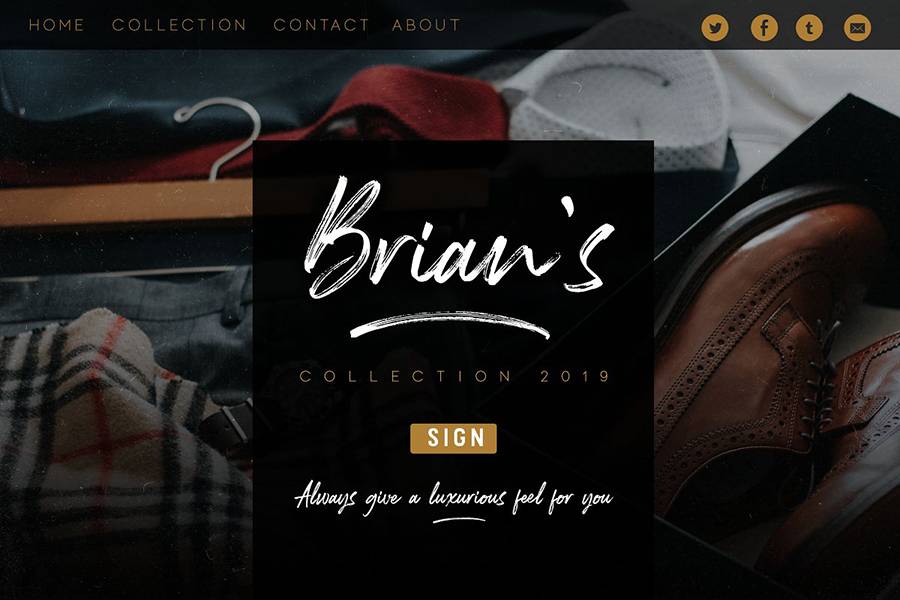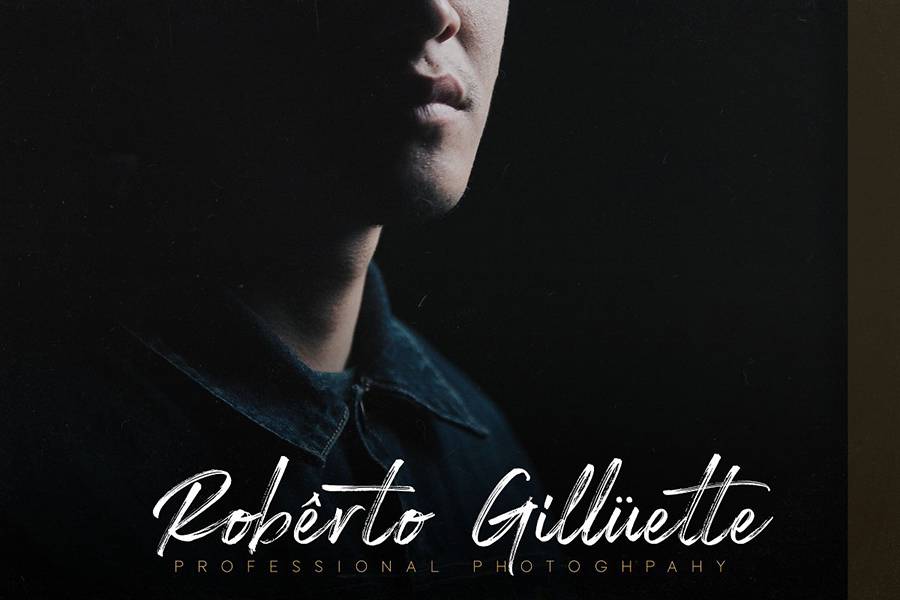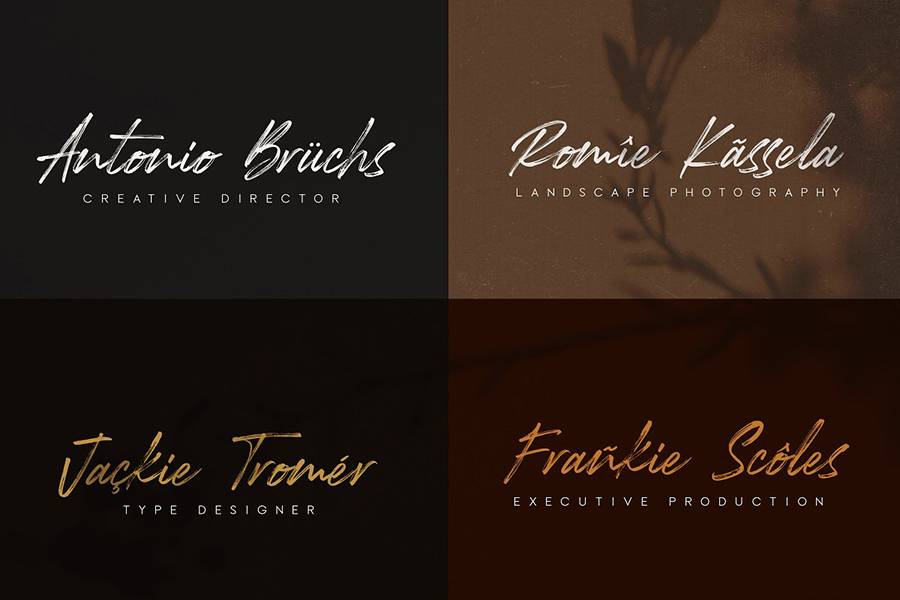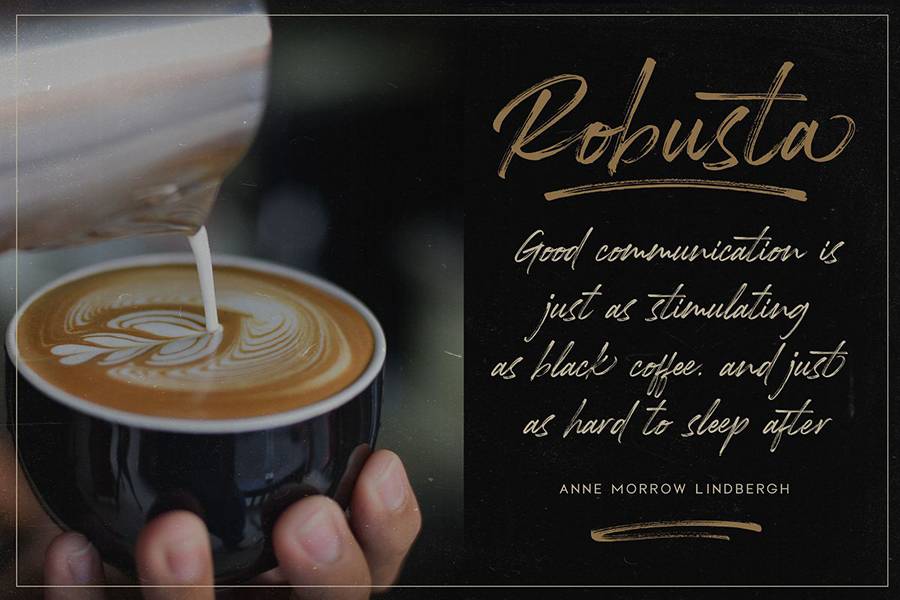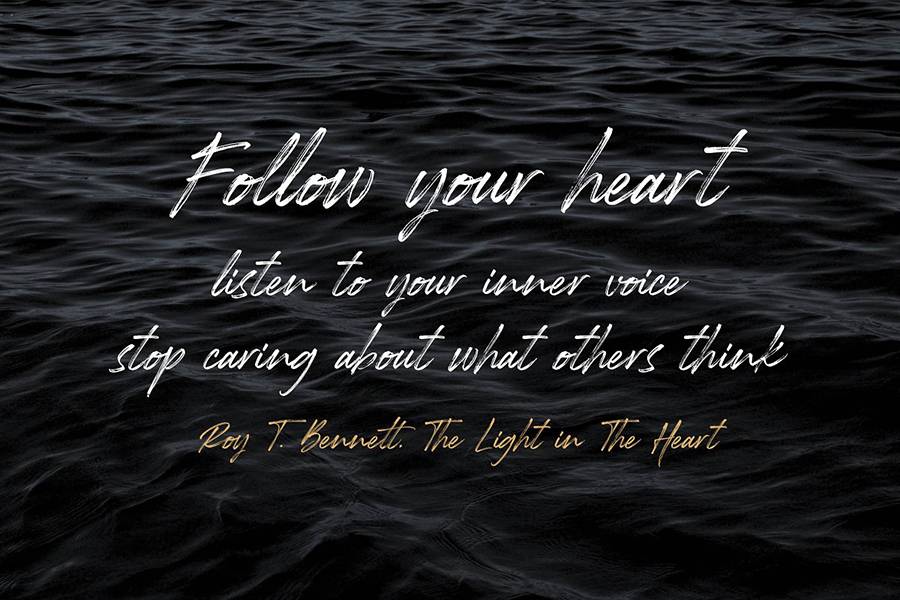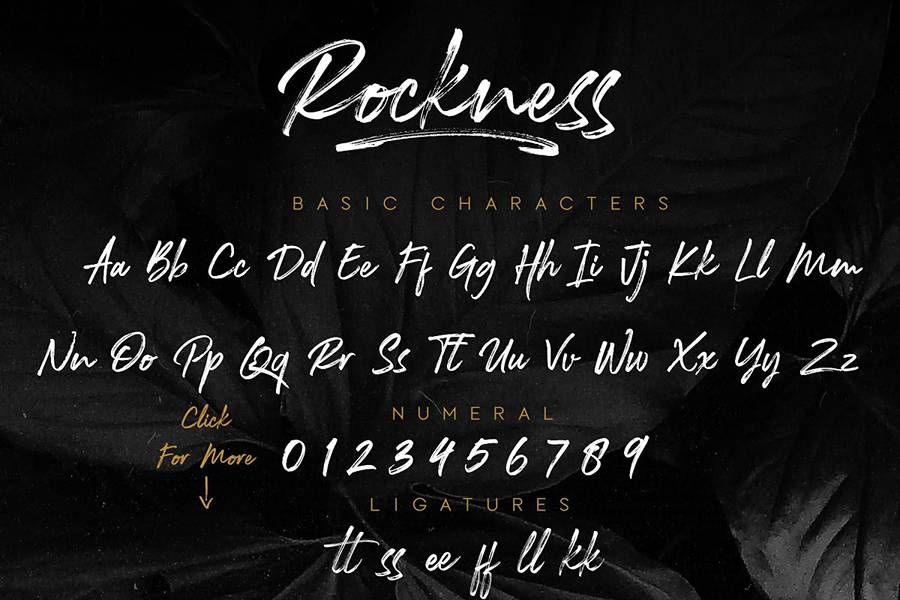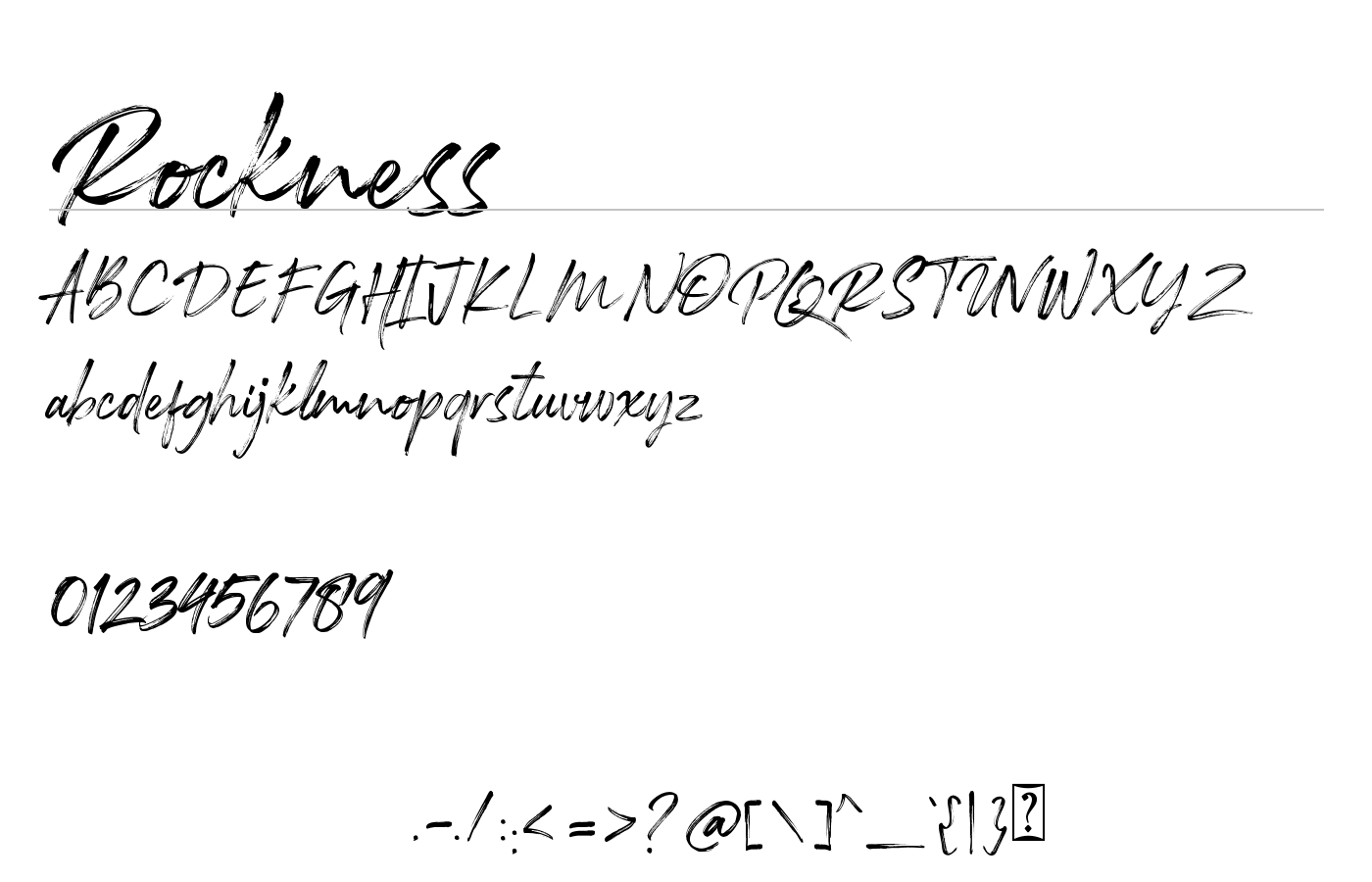
Rockness Handbrush is an energetic and expressive script font with a dynamic, hand-painted feel. Its textured brush strokes and casual letterforms give it a lively, artistic personality perfect for creative projects, branding, and headlines that want to capture attention with a natural, handcrafted look. This font works especially well in fashion, lifestyle, and artistic contexts where a bold, personal touch is desired.
Rockness Handbrush Font
About Rockness Handbrush Font
| Font family | Rockness Handbrush Font |
| Designer | MLKWSN 2019 |